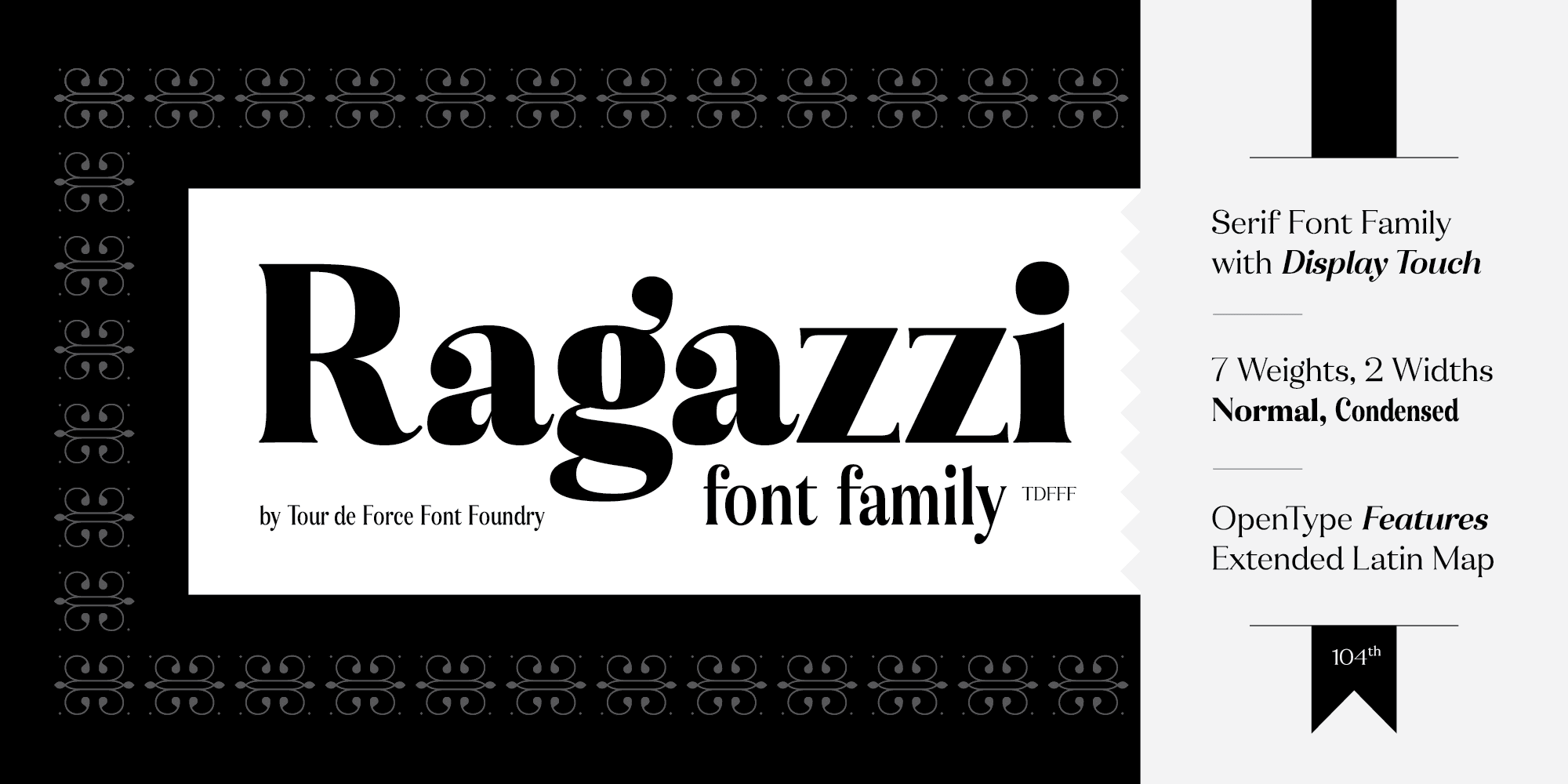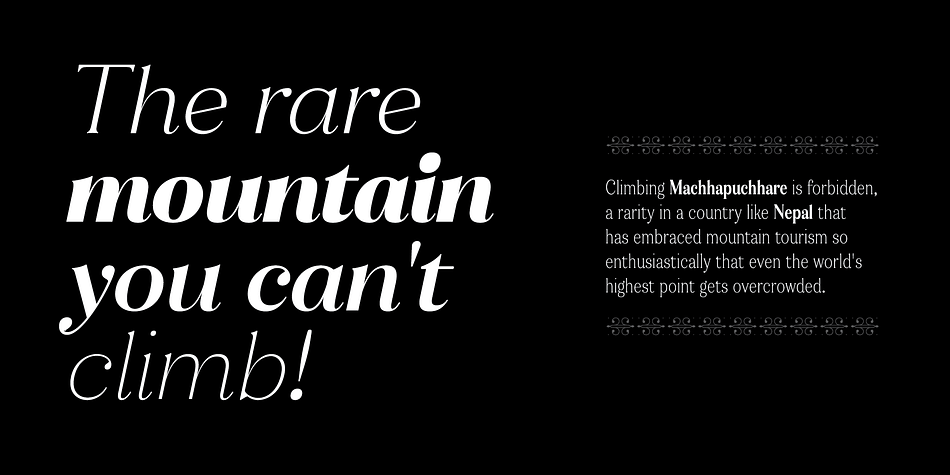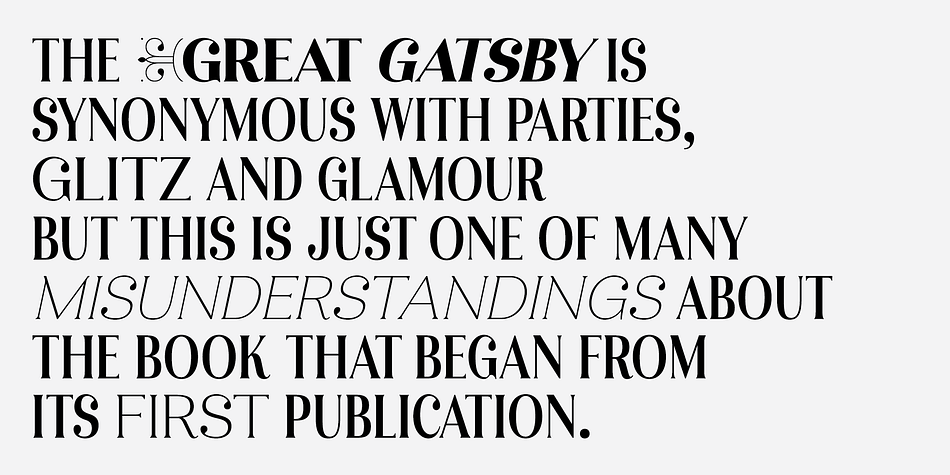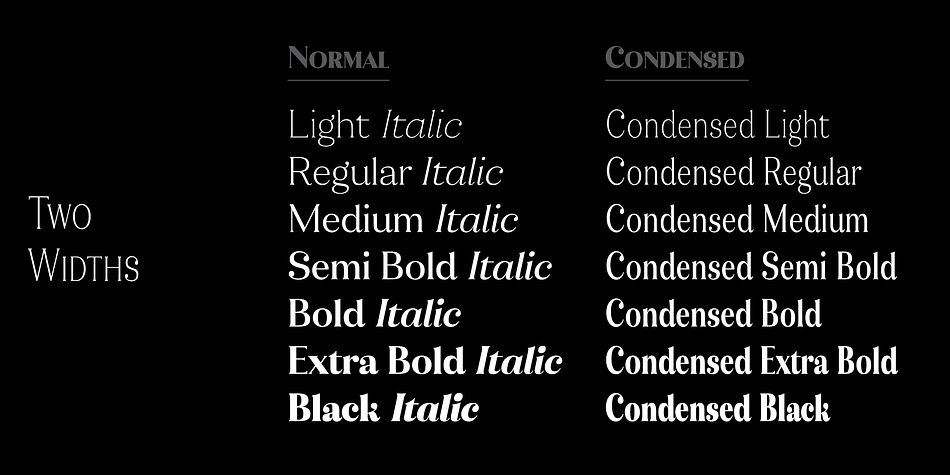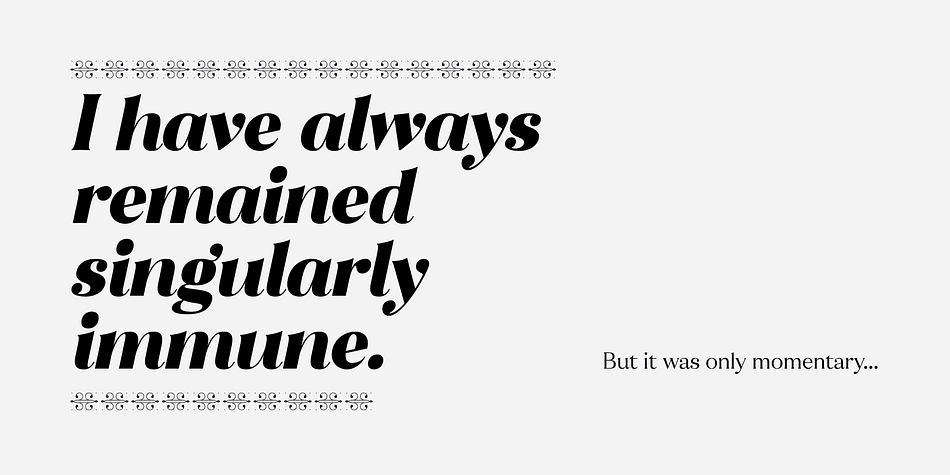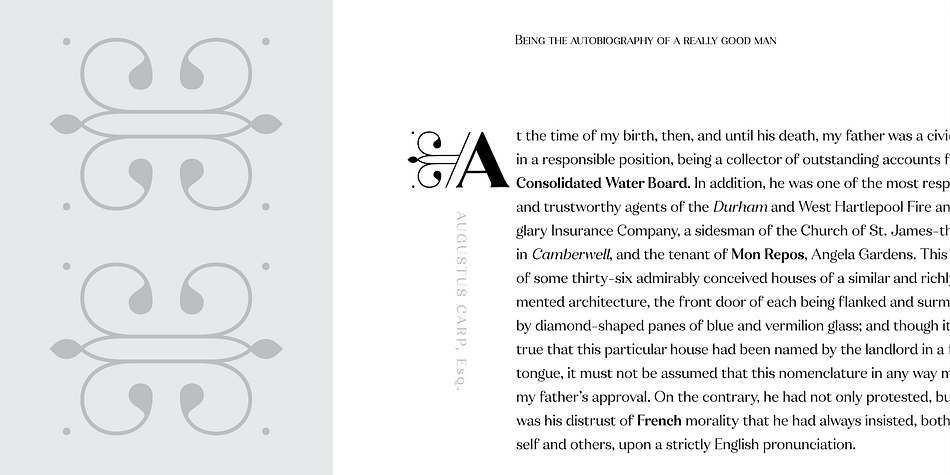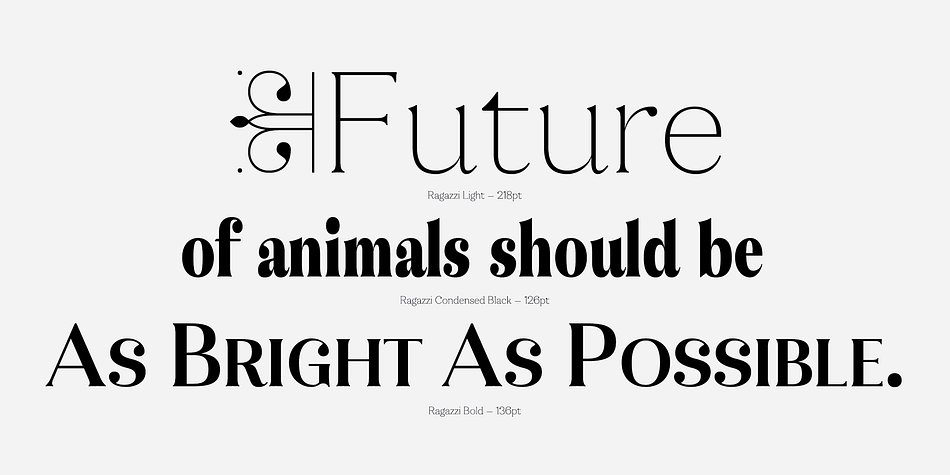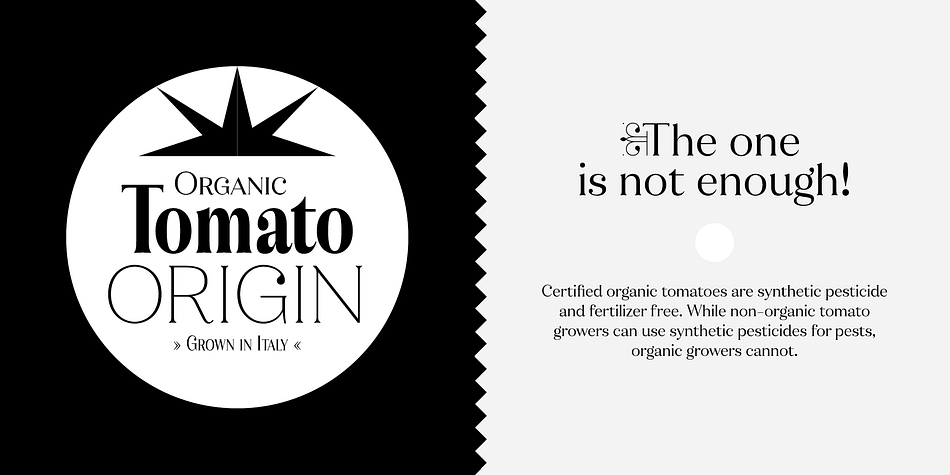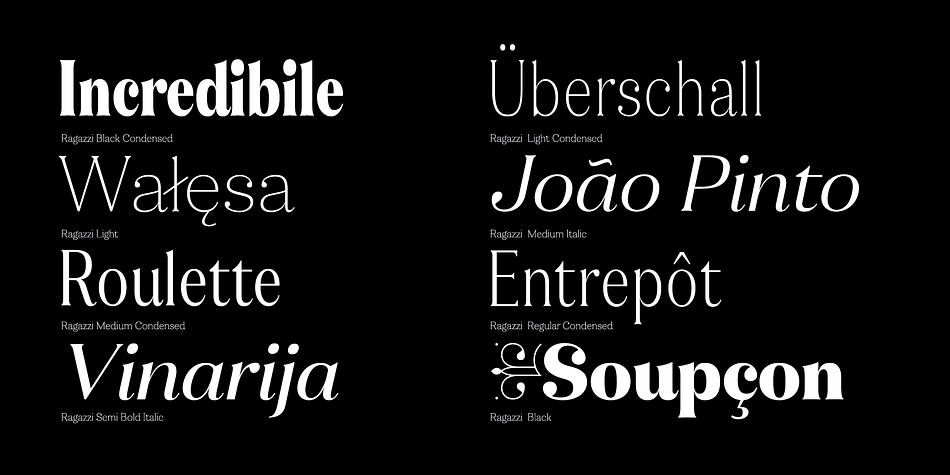
Designed by Dusan Jelesijevic, Ragazzi is a display serif and serif font family. This typeface has twenty-one styles and was published by Tour de Force Font Foundry.
Ragazzi is well balanced serif with display impact. Contains 2 widths – Normal and Condensed and matching Italics for Normal in weight distribution from Light to Black.
With gently rounded serifs, teardrop terminals, elegant hairline, equal ascender and descender heights, playful ear and smooth spur, Ragazzi represent distinctive serif family for respectable area of usage. Family’s display elements are especially noticeable in headlines, but they handle longer paragraphs with same success, not effecting on legibility keeping right dose of display touch present.
Ragazzi contains OpenType features: Small Caps, Initials, Standard Ligatures, Ordinals, Fractions, Superscript, Subscript, Oldstyle Figures, Tabular Figures and two decorative dingbats.
Condensed and Italics font files don’t contain Initials and dingbats.
Ragazzi is our 104th release.